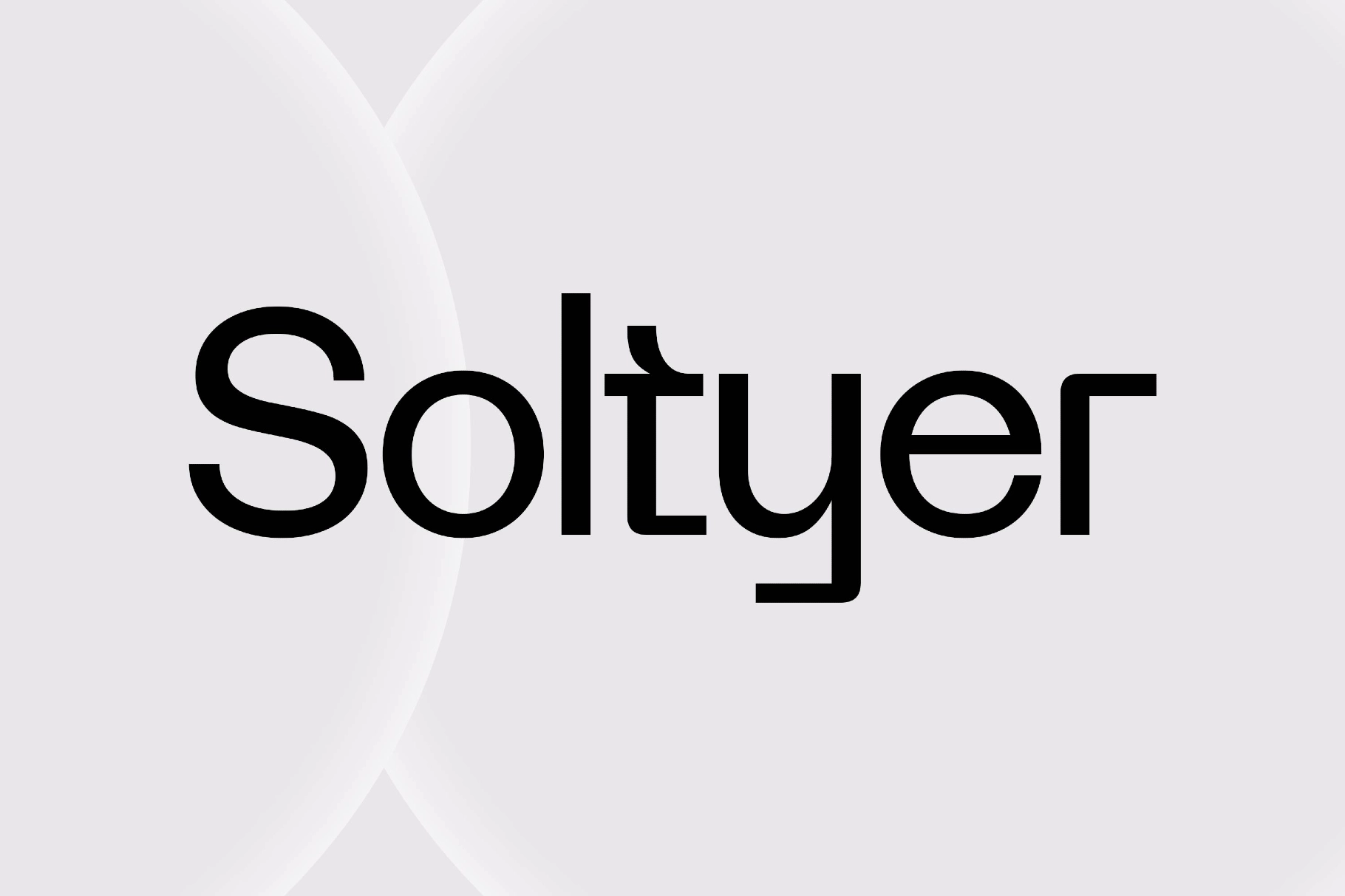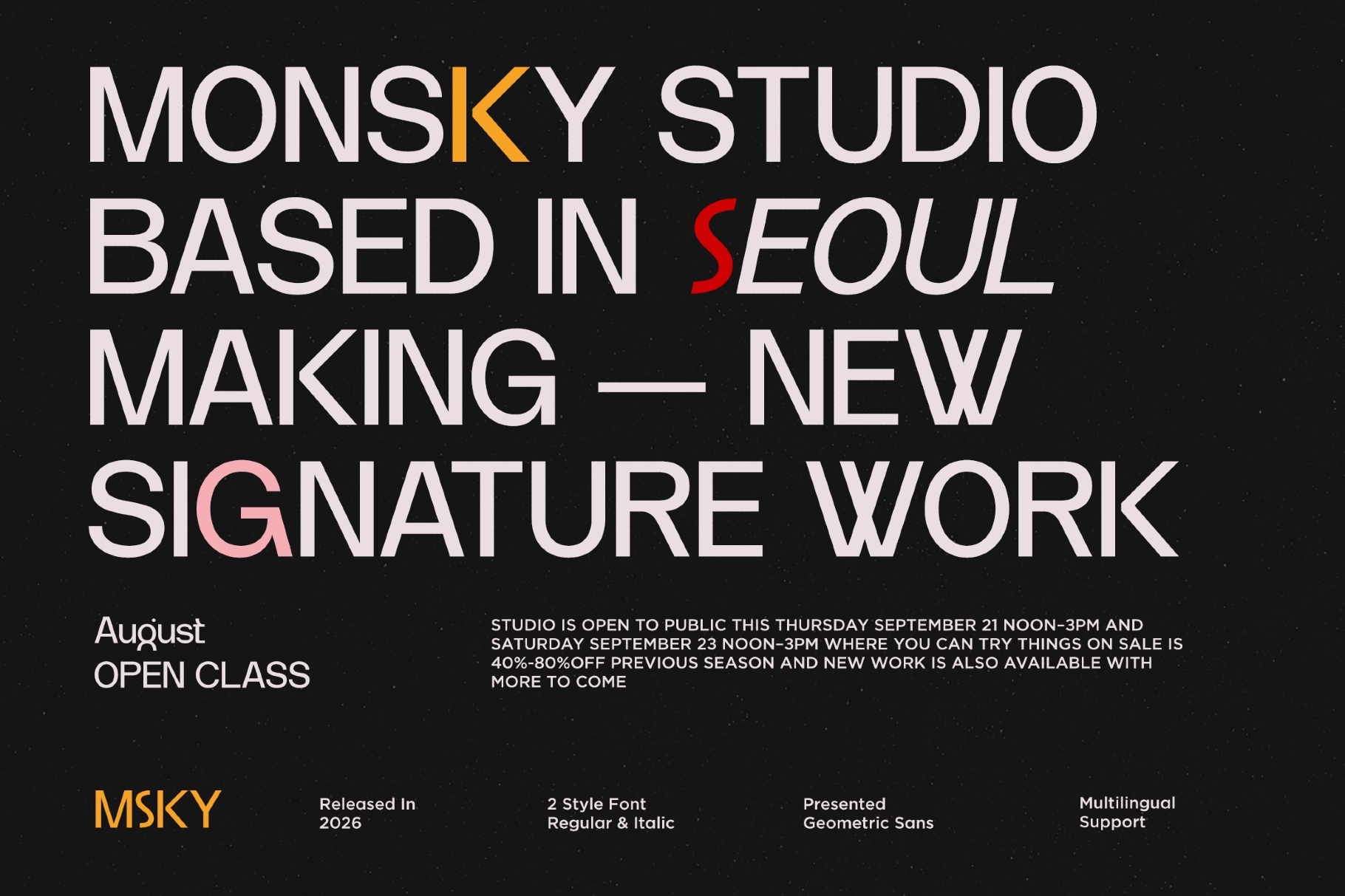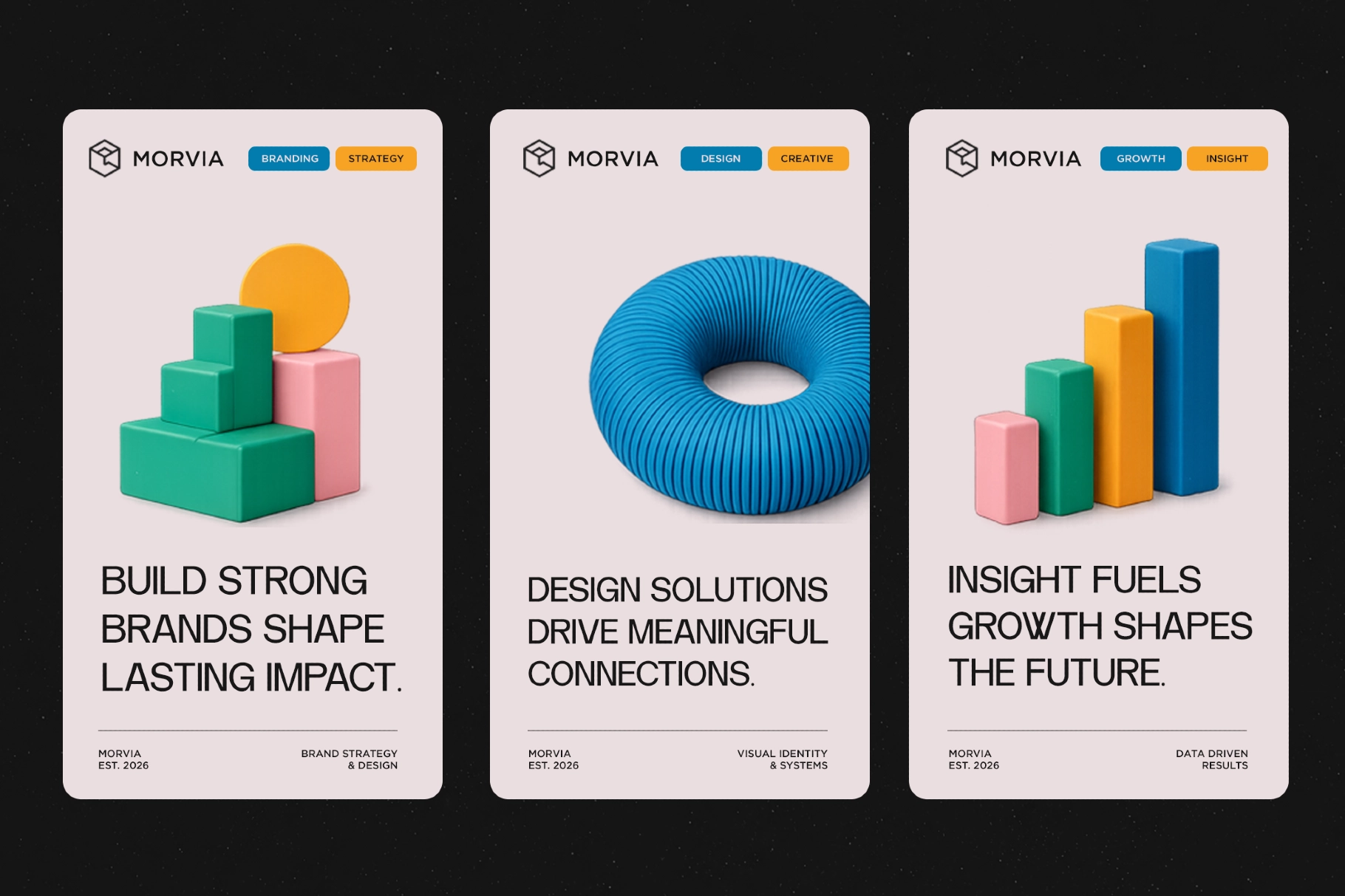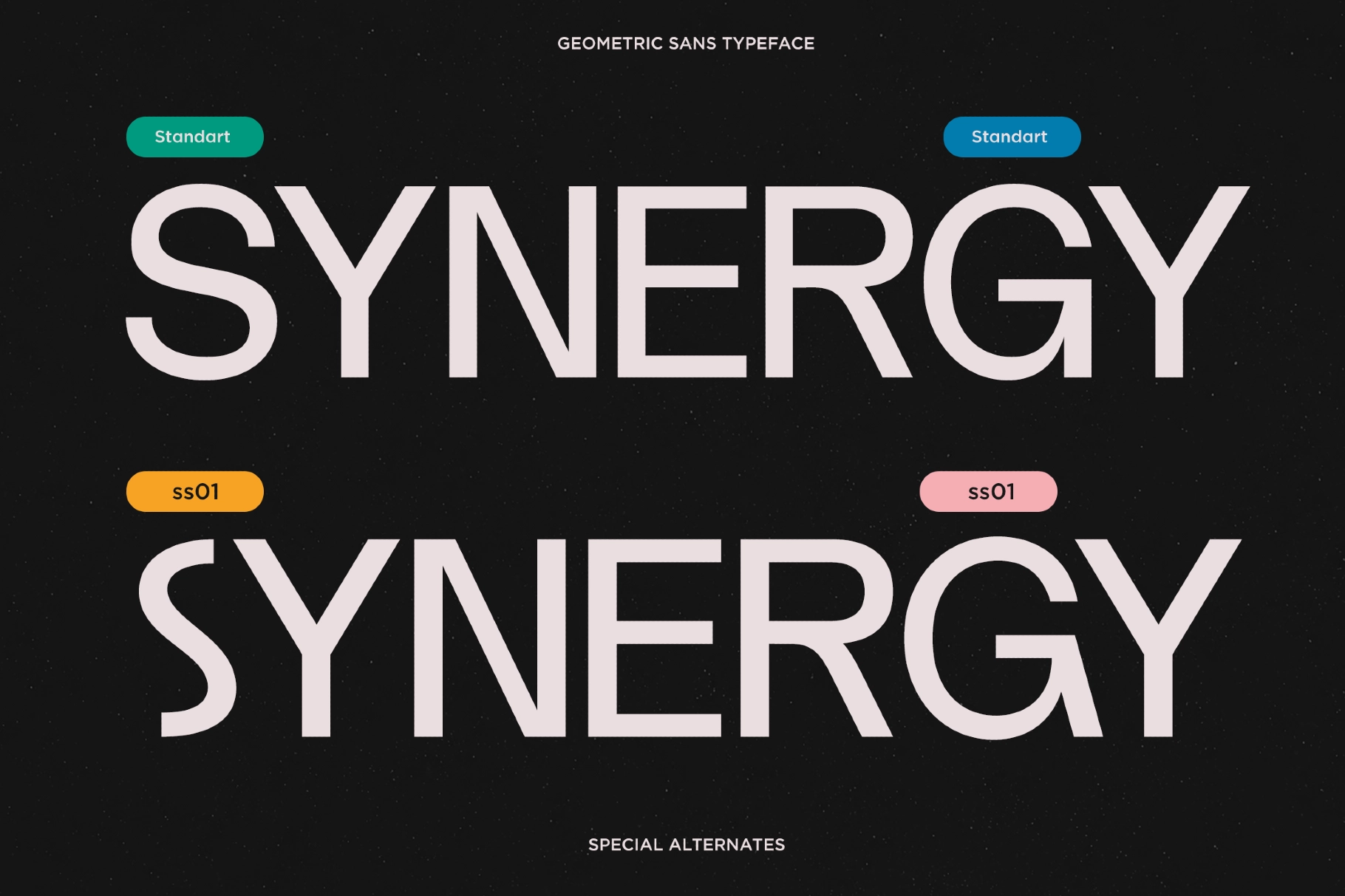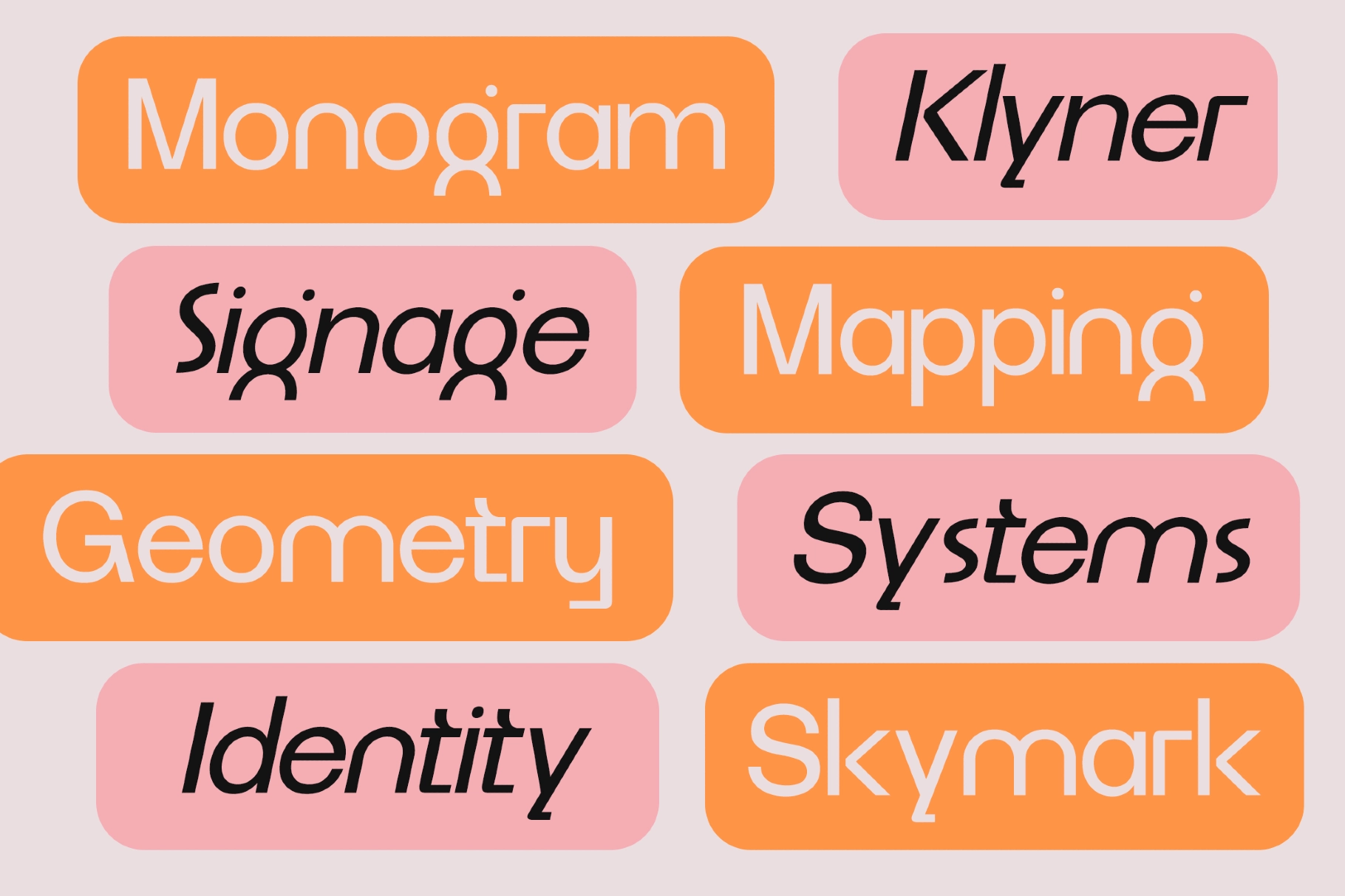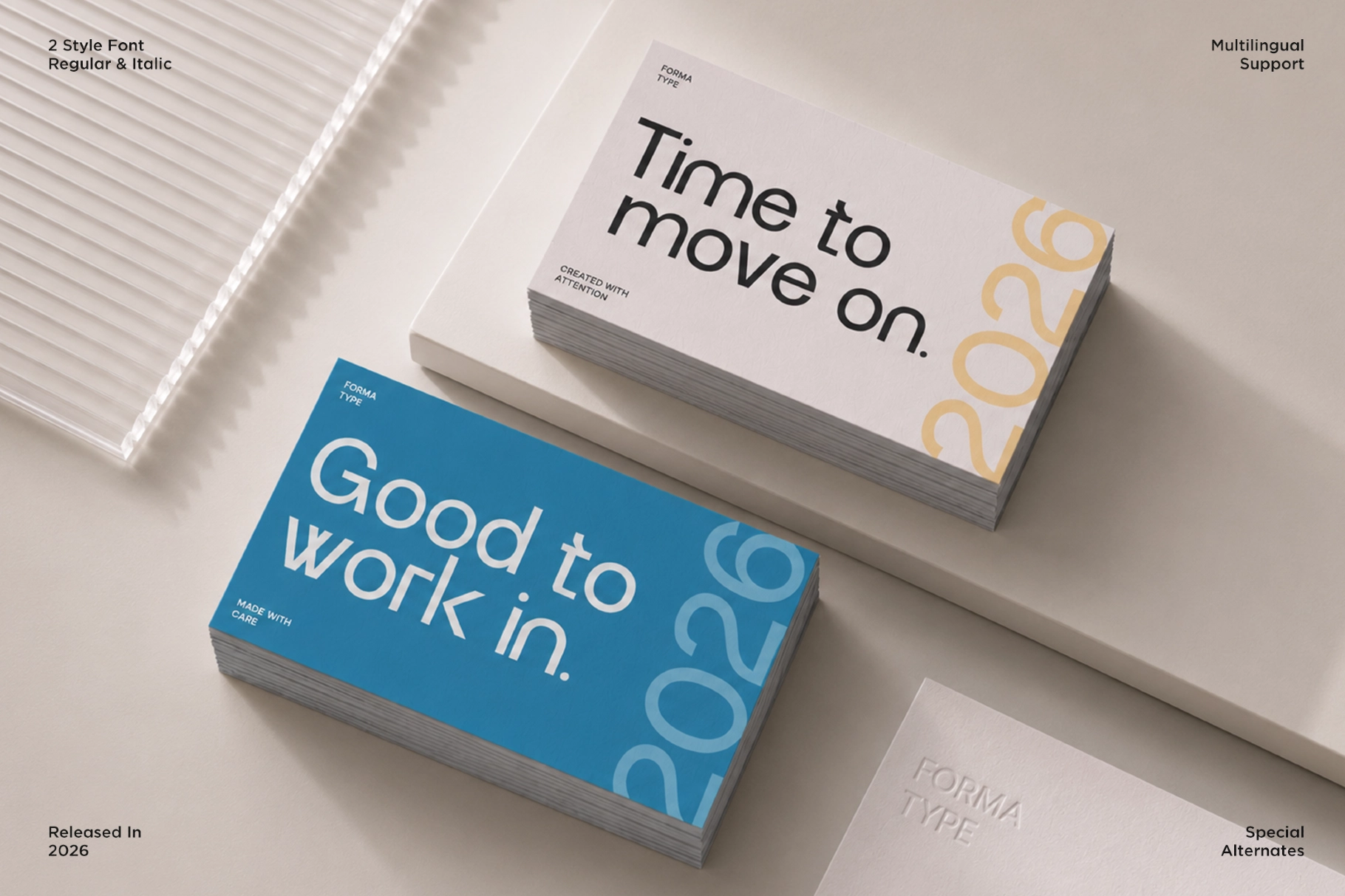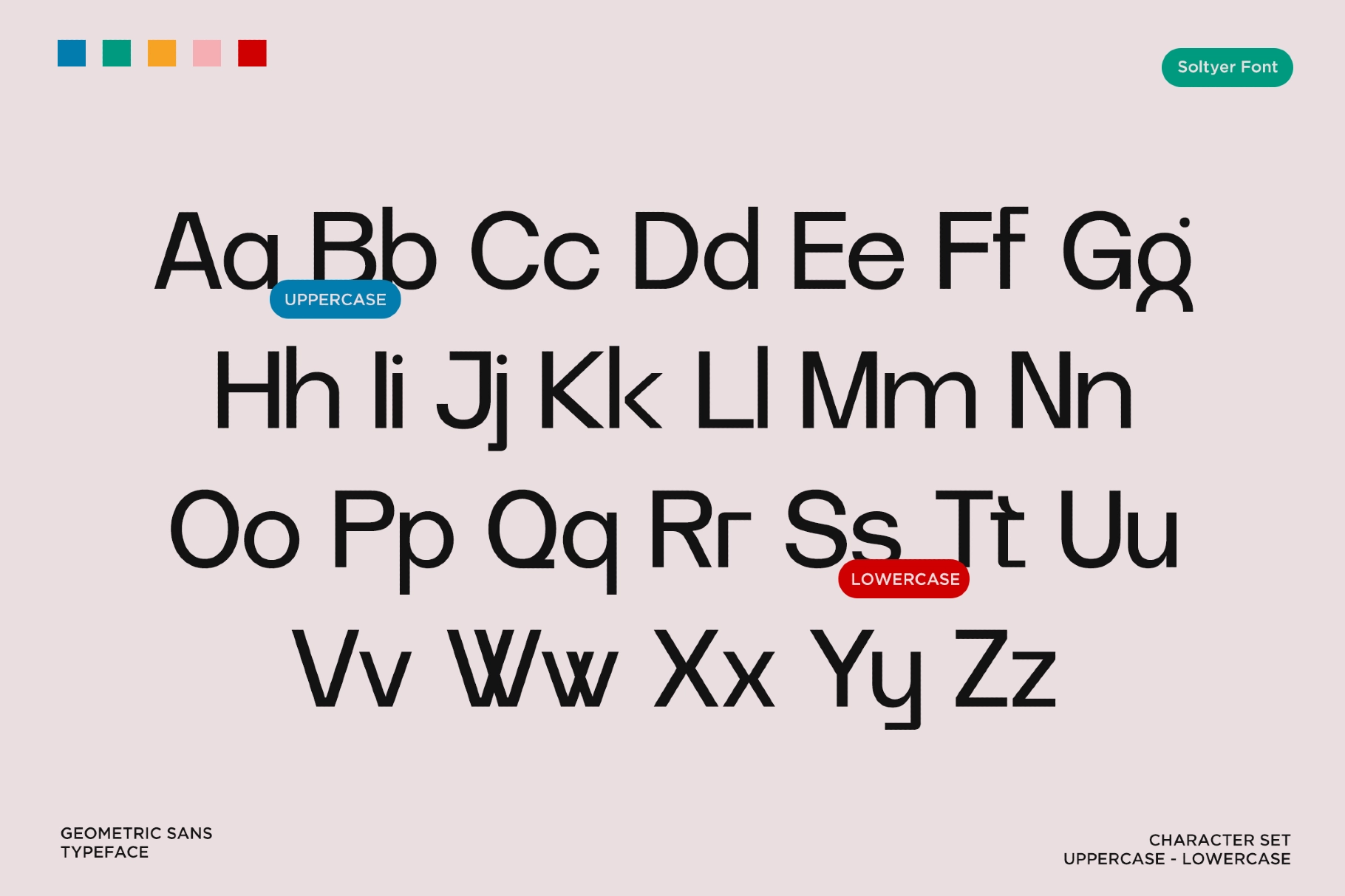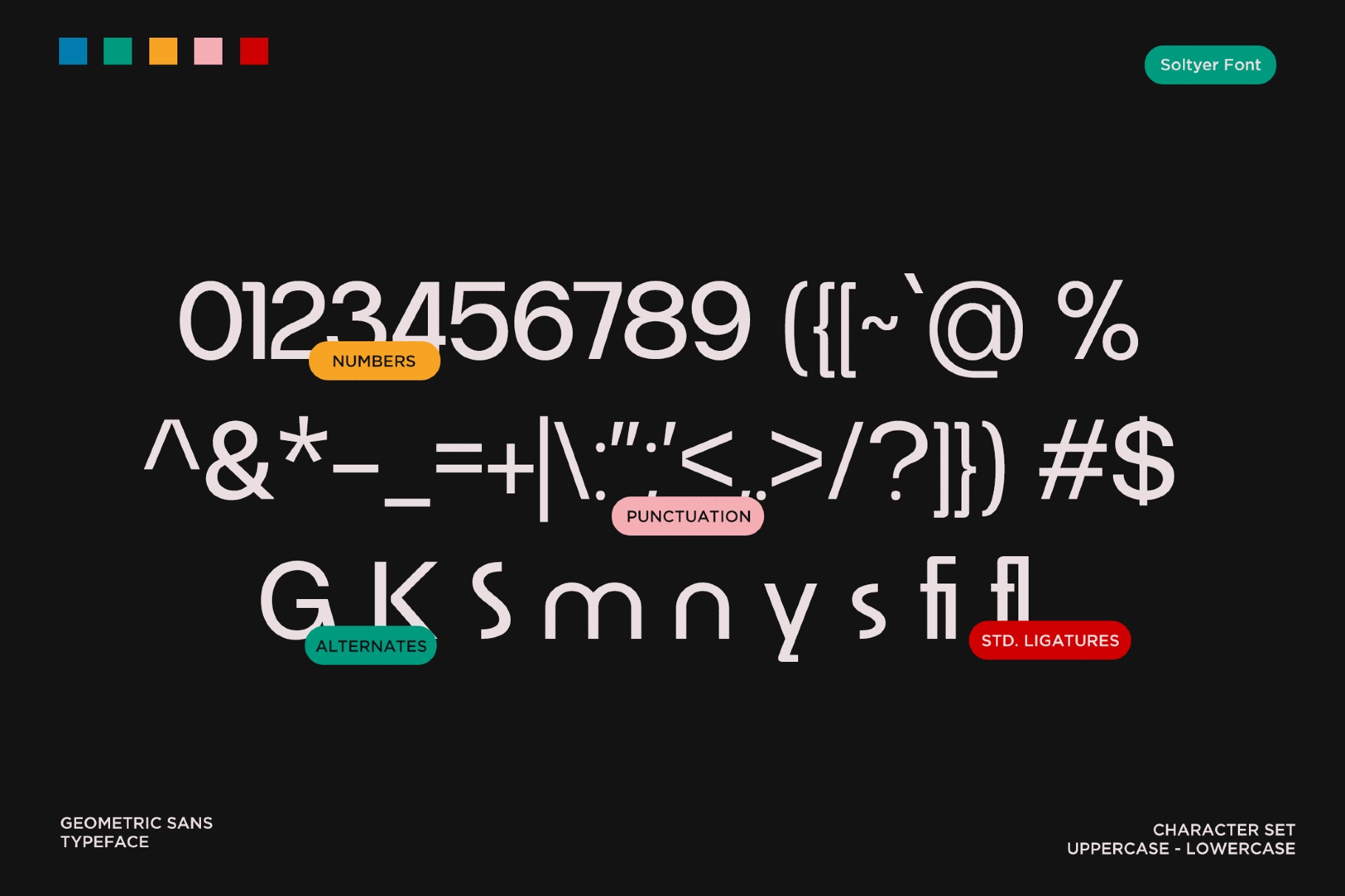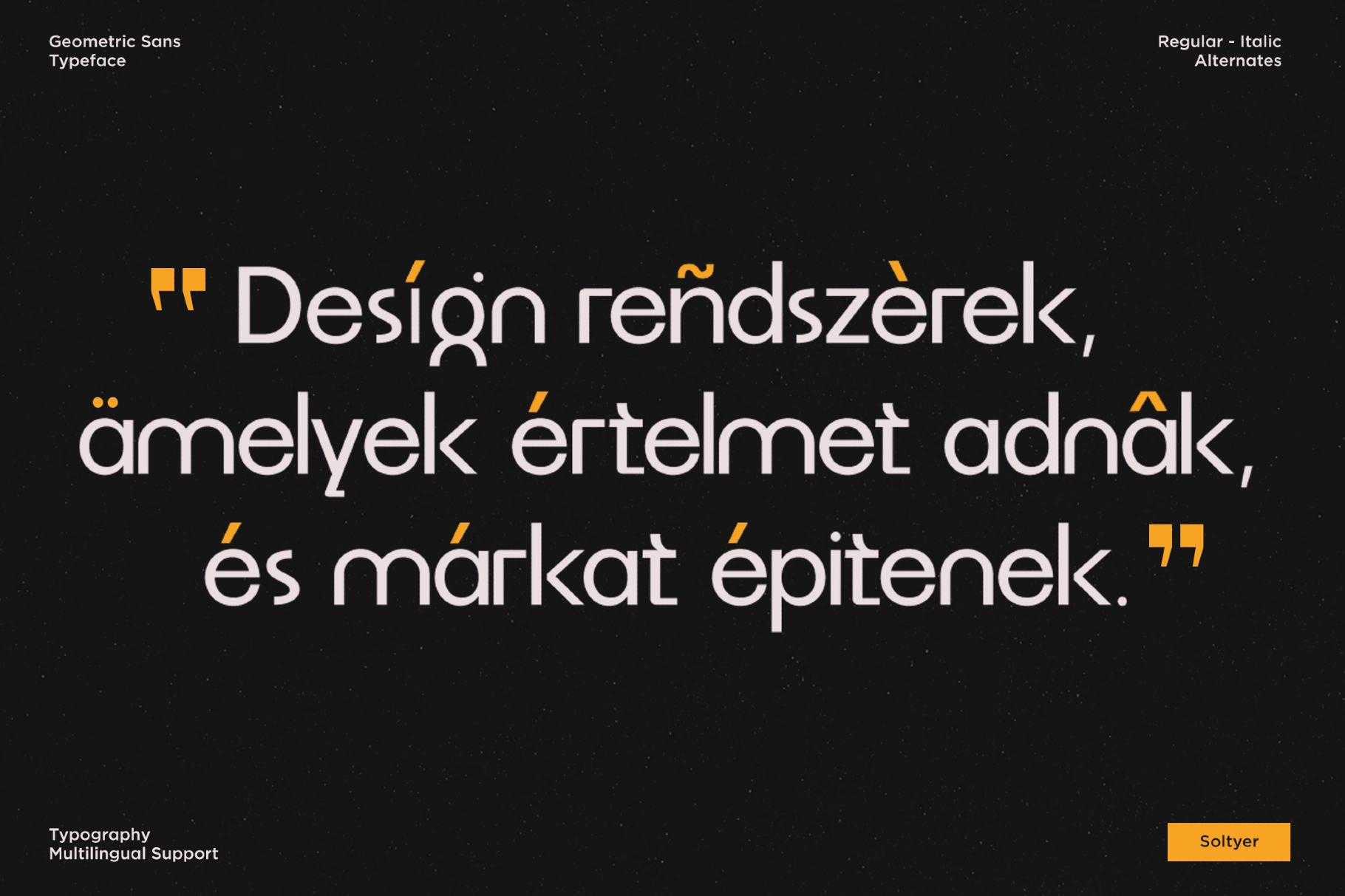
Soltyer - Geometric Sans Serif Font
Soltyer is a geometric sans font built on strict circles and single-story letters — a round O, round bowls on the P and R, no double-story a or g anywhere in the set. Standard ligatures and a set of stylistic alternates add some personality on top of that strict construction without breaking the underlying grid. Regular and Italic styles cover both upright and slanted use.
Soltyer holds up at both large display sizes and small body text, which keeps it useful across a full brand system rather than just headlines. Use it for startup and tech wordmarks, magazine headlines and pull quotes, cosmetics or product packaging, and UI hero text on a marketing landing page.
- 2 styles: Regular, Italic;
- uppercase & lowercase;
- numerals, punctuation & symbols;
- stylistic alternates and standard ligatures;